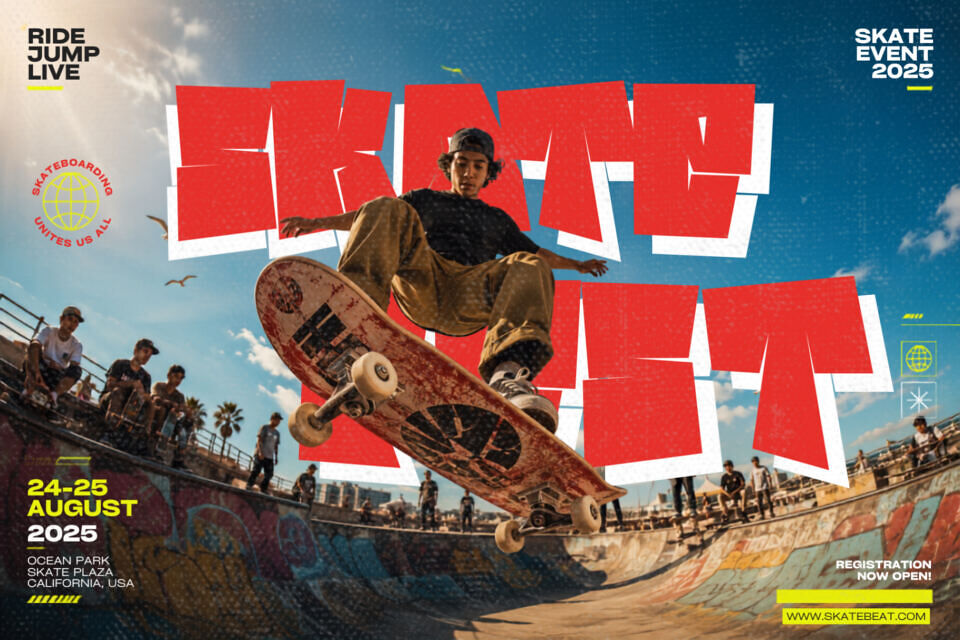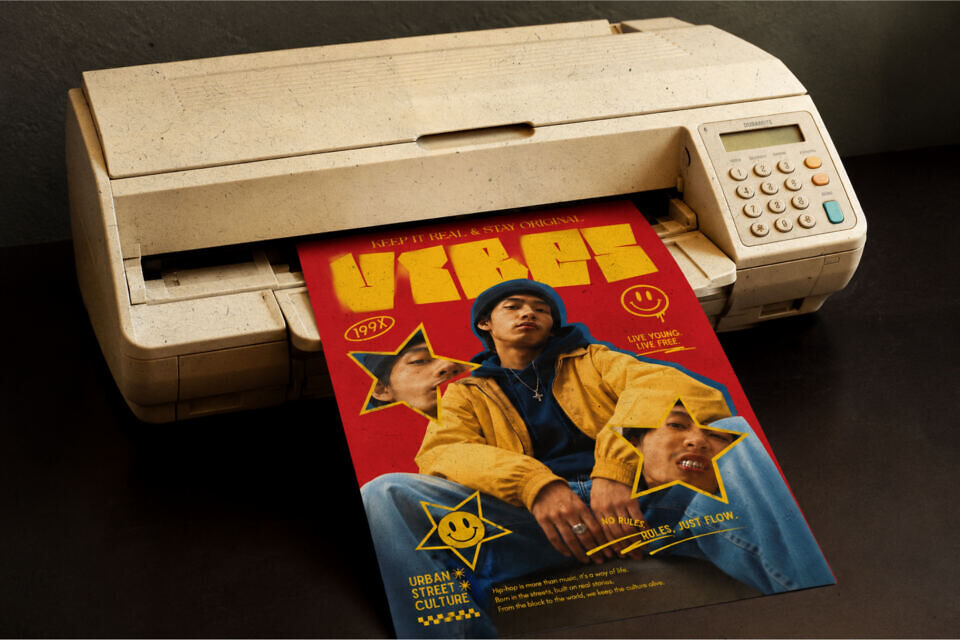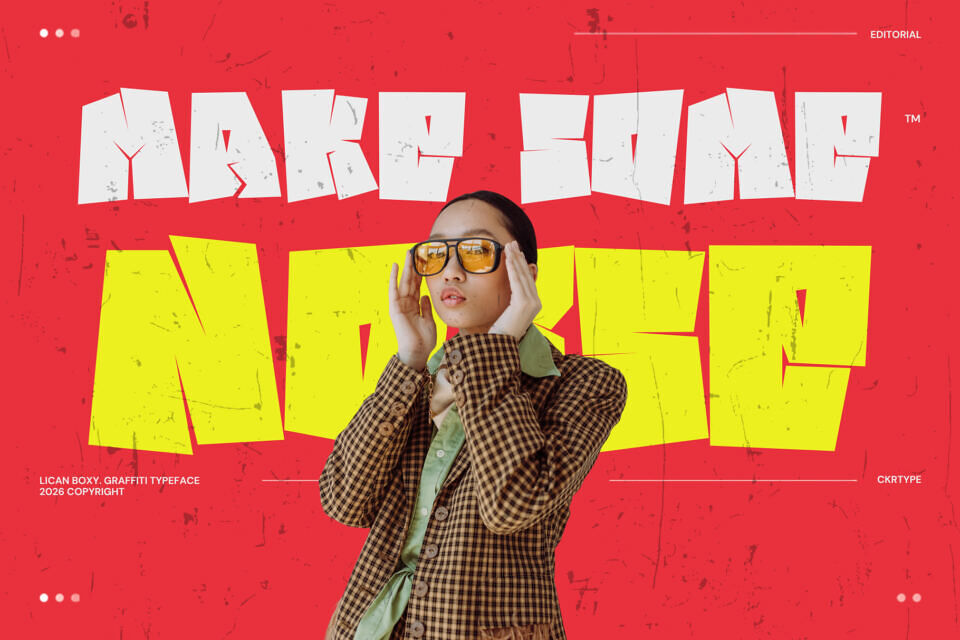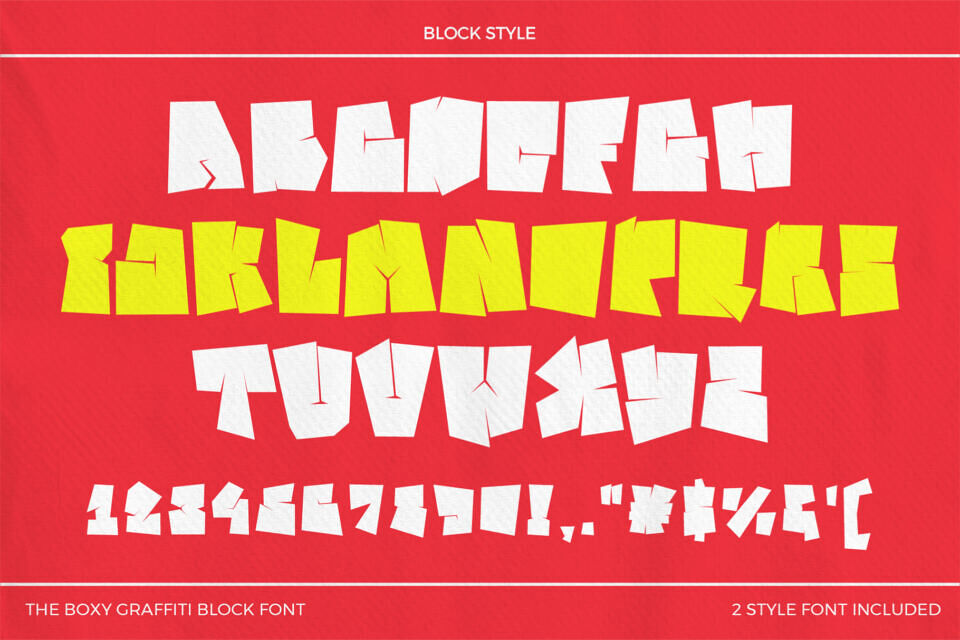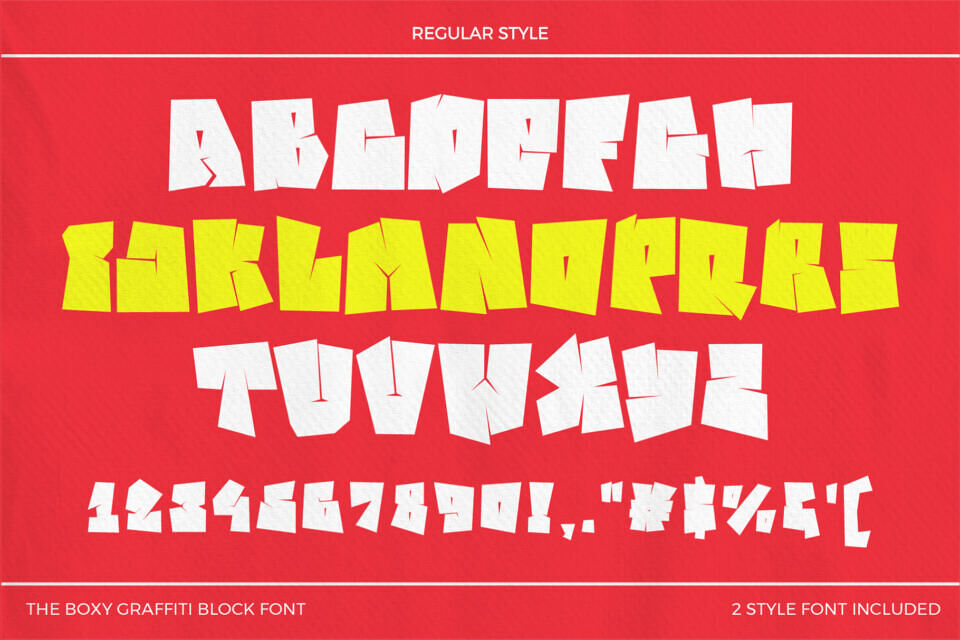
Lican Boxy is a bold and modern graffiti font that combines strong block lettering with authentic urban street culture. Designed for creators who want clean geometry without losing the rebellious spirit of graffiti, this block graffiti font delivers powerful visual impact for every creative project.
Whether you’re building a streetwear brand, designing album artwork, creating posters, or producing social media content, Lican Boxy graffiti font gives your typography a bold, confident, and unmistakably urban identity.